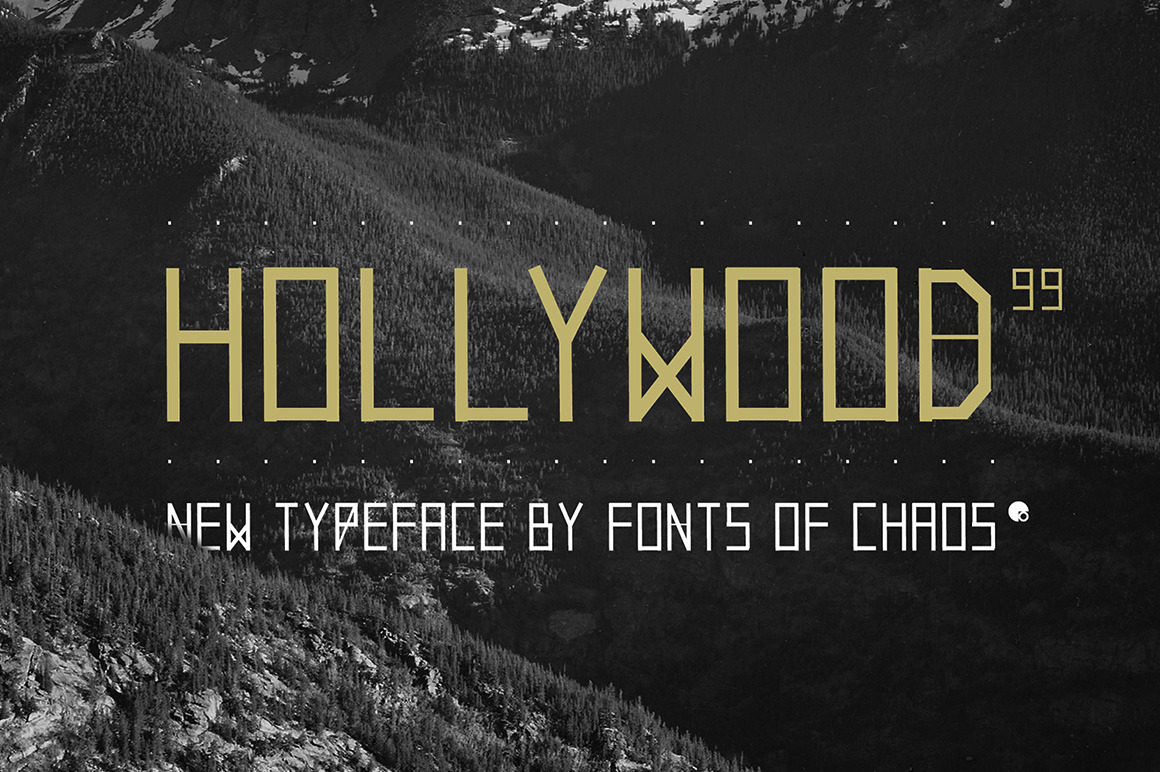
Hollywood 99 - font
This is not Hollywood. You may be surprised but I am not inspired by the famous Hollywood sign for this type but a grid on a roof of Barcelona. I walked down the street observing the architecture of buildings in the area of the Marina when I saw a grid on a roof. One of the workers put a board on them and the magic happen.